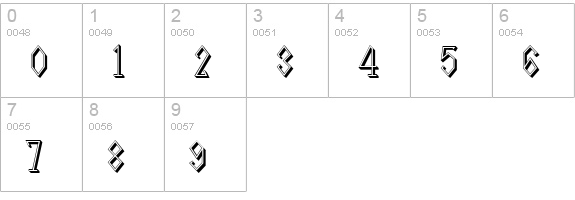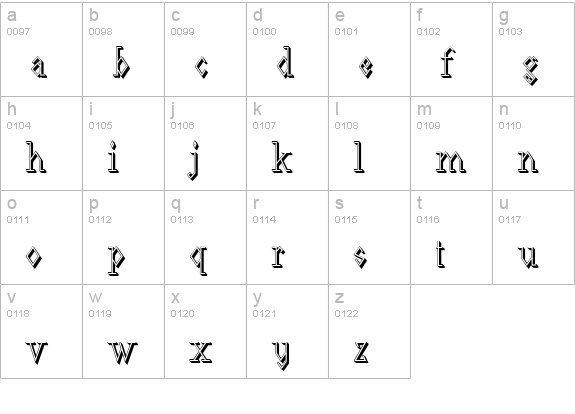
LineDriveShadow Font Details
LineDriveShadow is a sleek and modern font that adds a touch of sophistication to any design project. With its clean lines and bold shadow effect, this font is perfect for creating eye-catching headlines, titles, and logos. The sharp edges and unique style of LineDriveShadow make it stand out from the crowd and give your designs a professional and polished look. Best of all, LineDriveShadow is available for free download at FontsMarket.com. Whether you're a graphic designer, a blogger, or just someone looking to add a stylish touch to their projects, LineDriveShadow is the perfect font for you. Download it today and start creating stunning designs with ease!